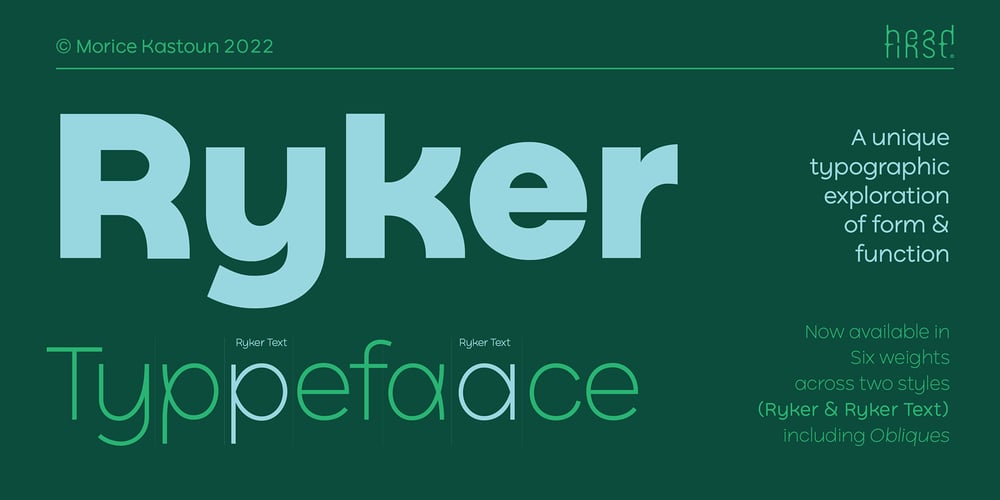
Ryker Font Family was designed by Morice Kastoun and published by HeadFirst. Ryker contains 24 styles and family package options. Ryker – Typographically speaking, provides both personality and functionality. It is the perfect combination of unique, distinctive forms that also function with clear recognition & legibility.From publications, packaging to corporate branding, Ryker has you covered with every weight & typestyle – cleverly crafted for every purpose and occasion.Designed by Morice Kastoun.